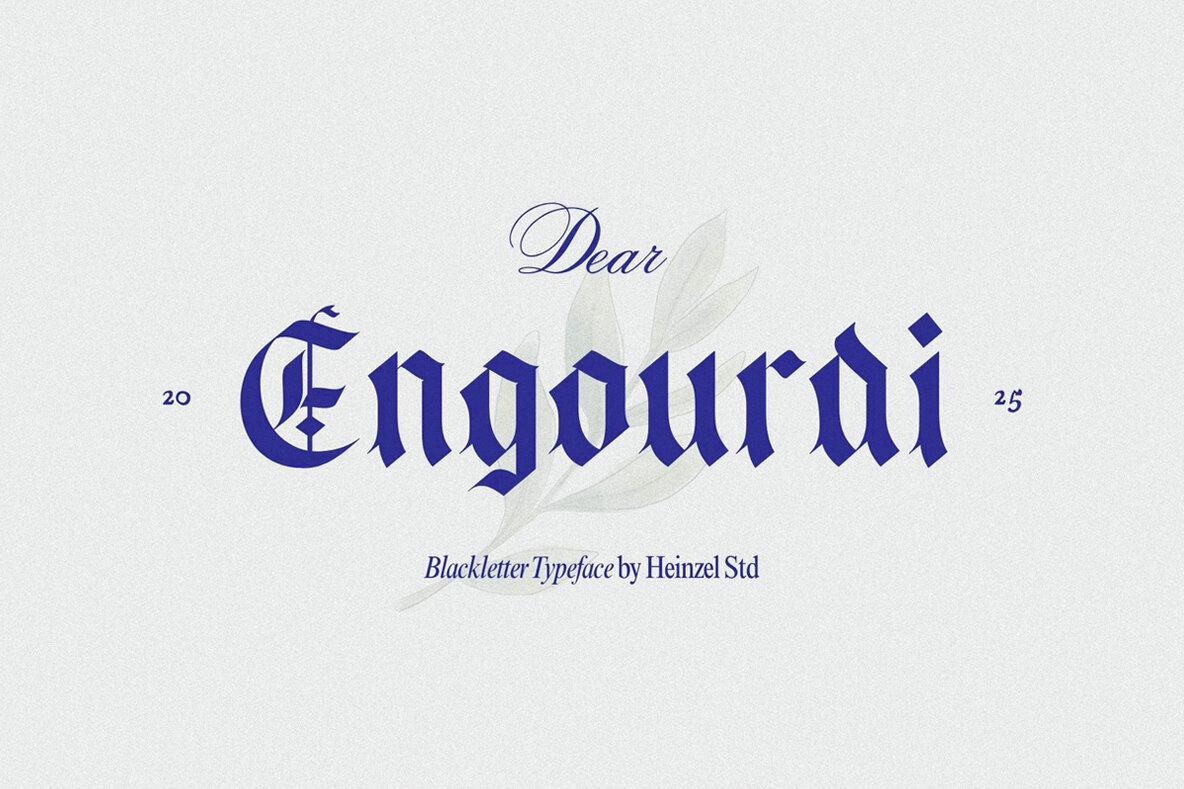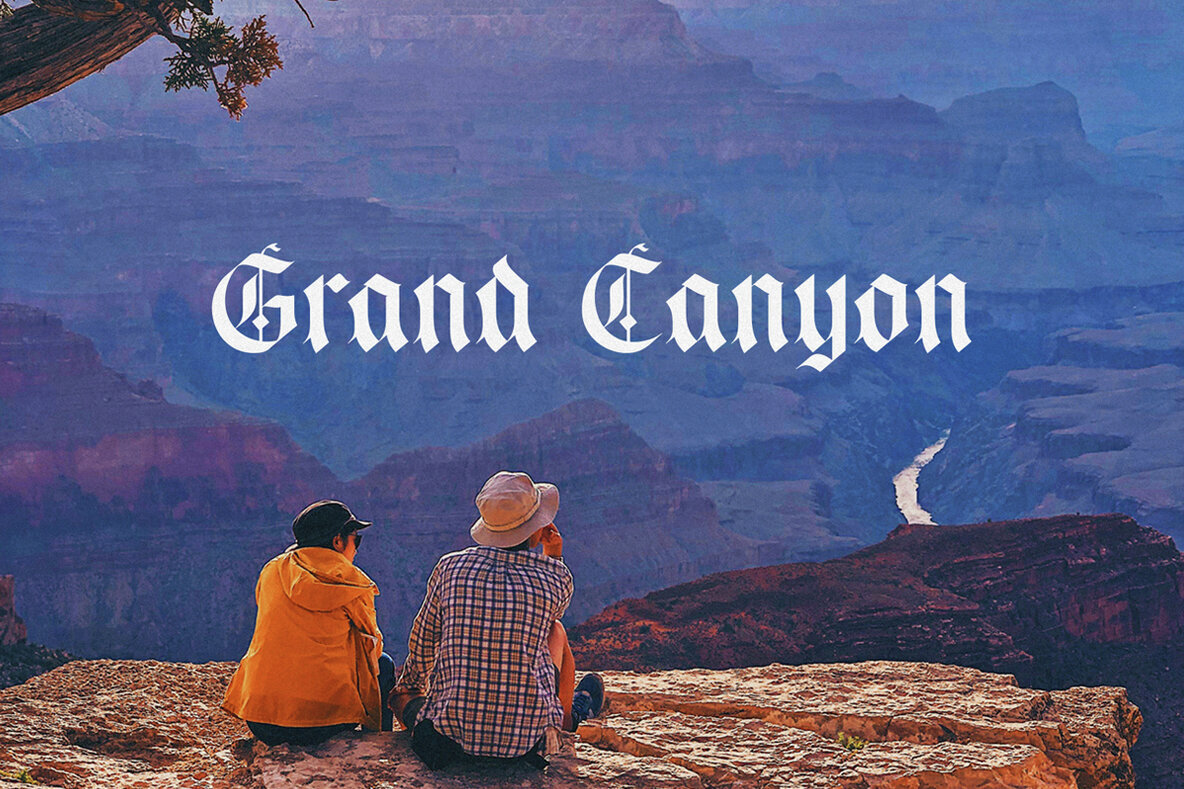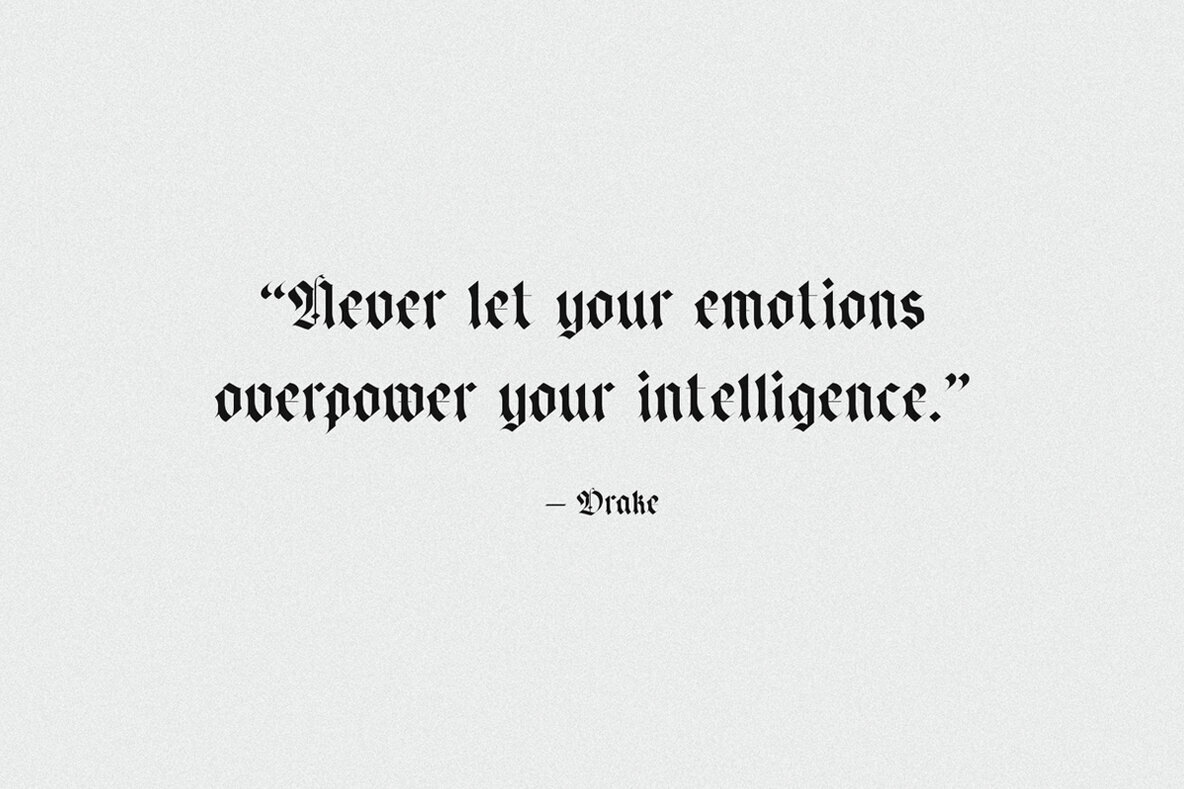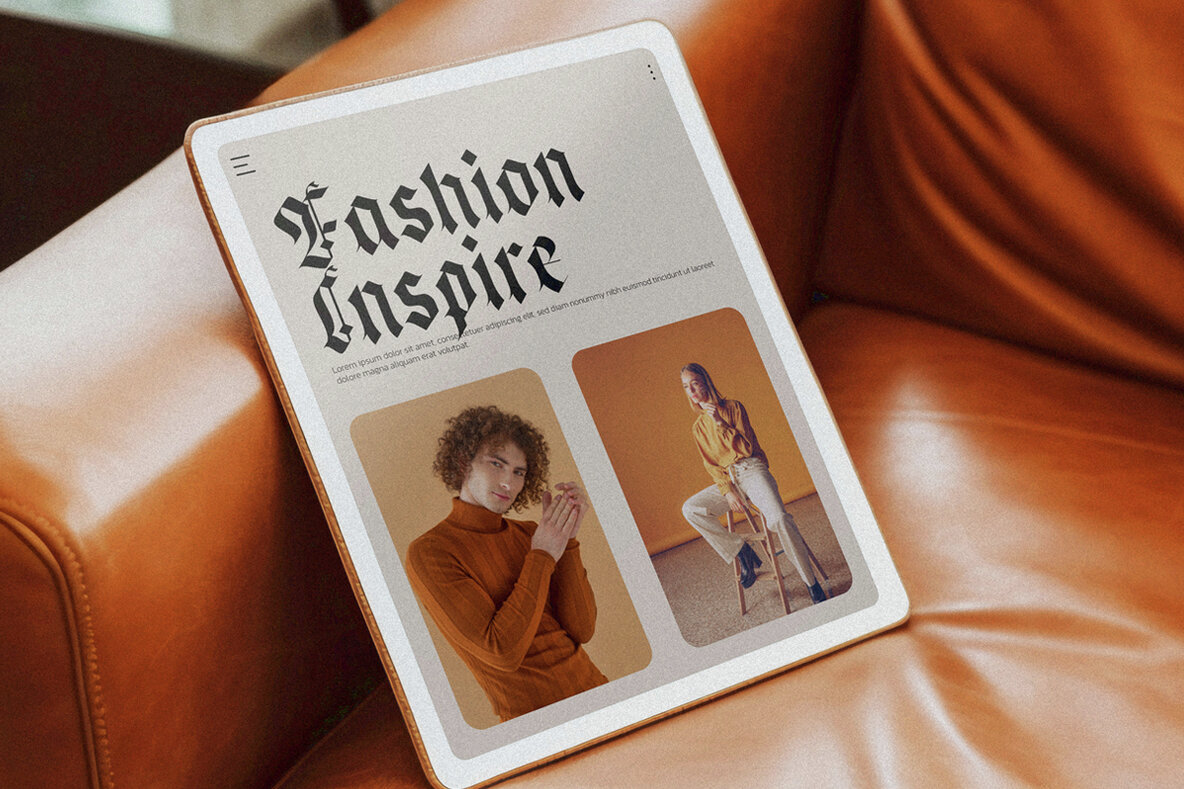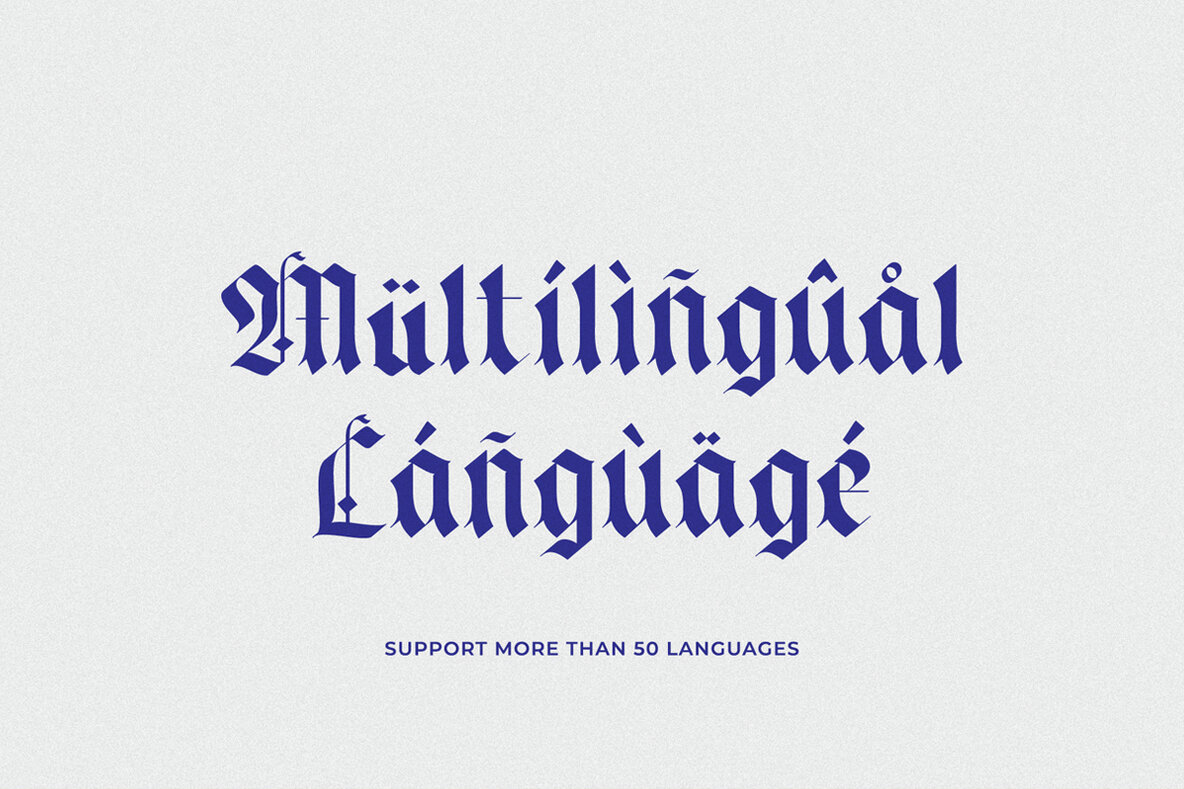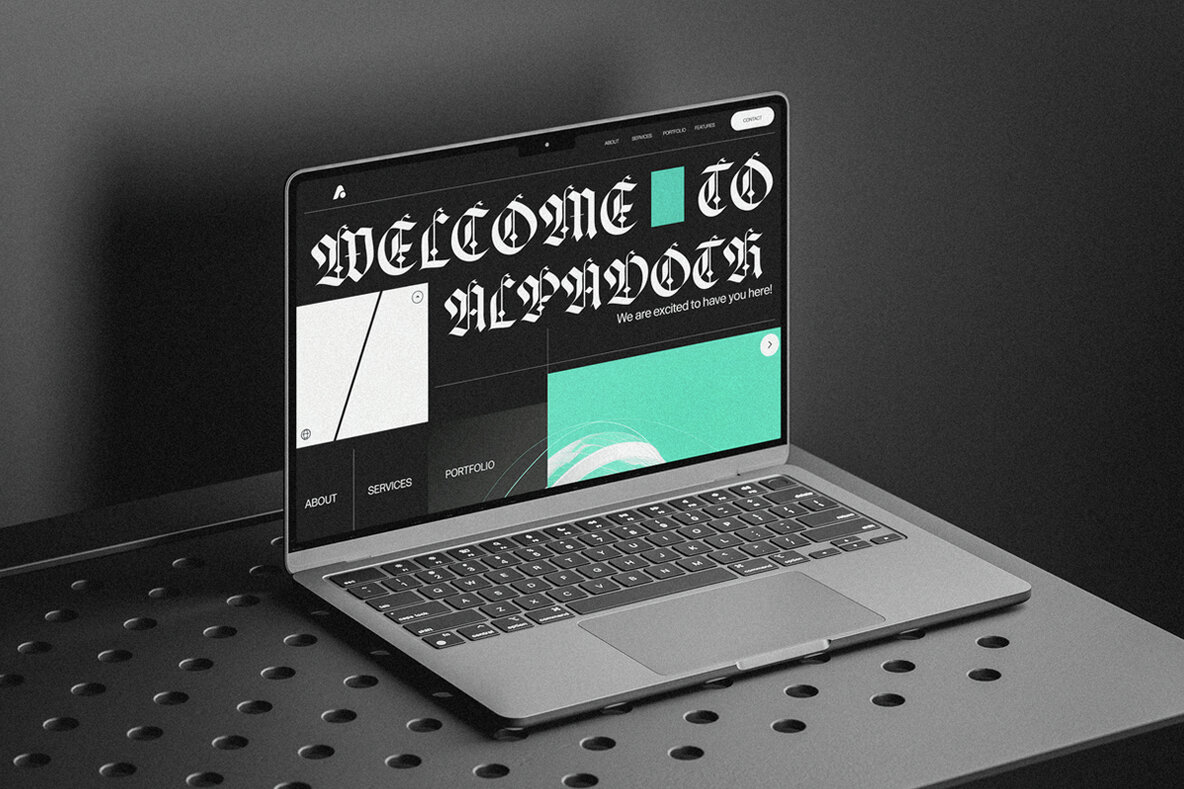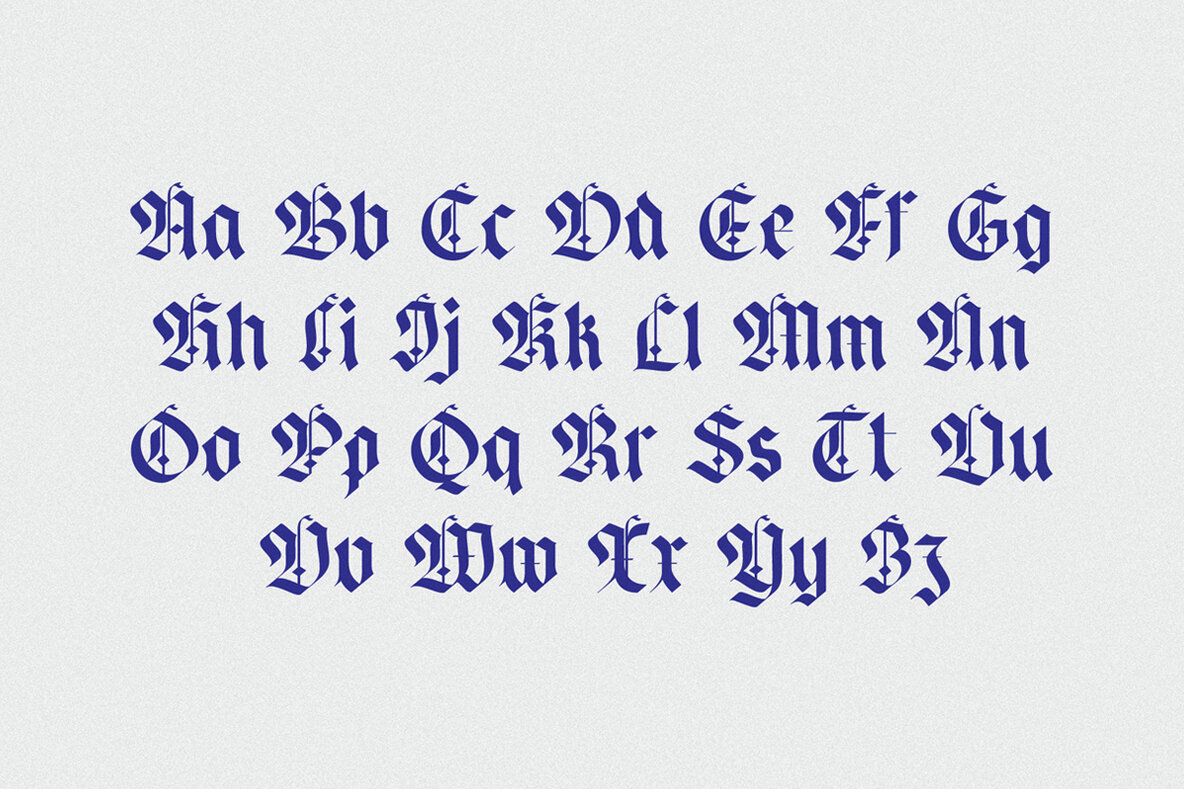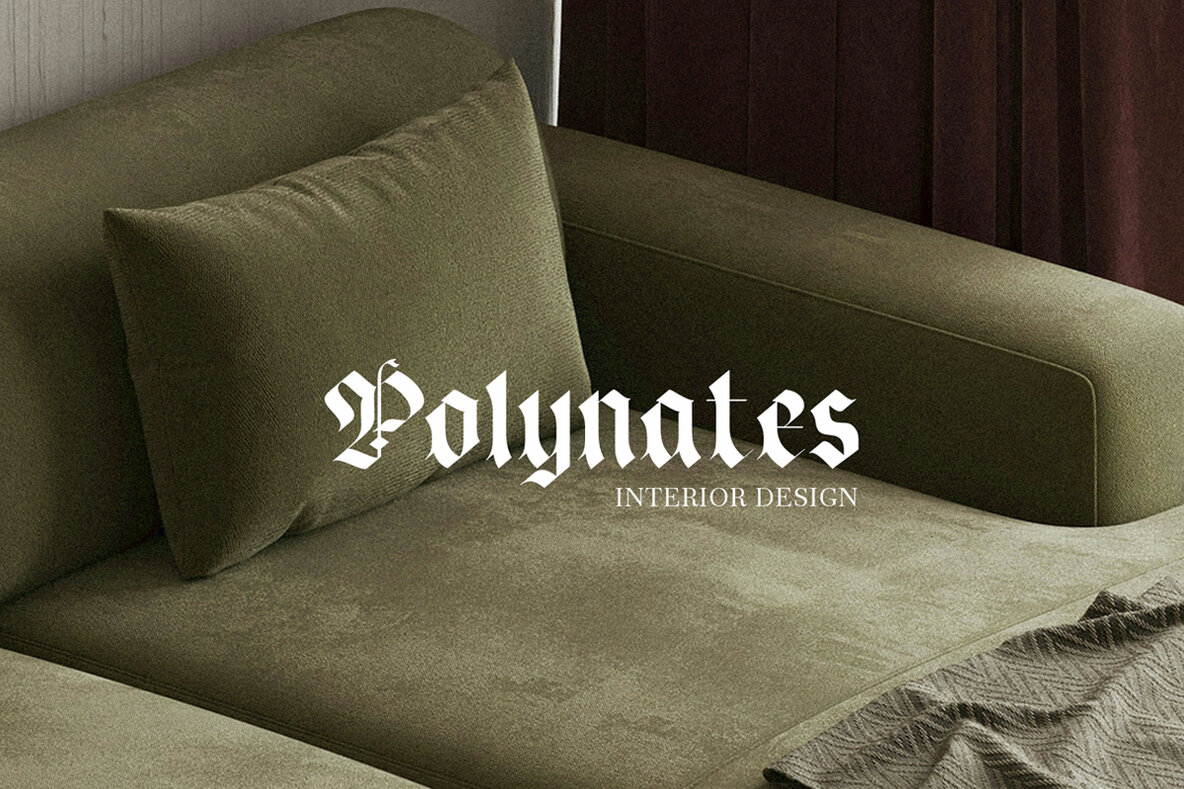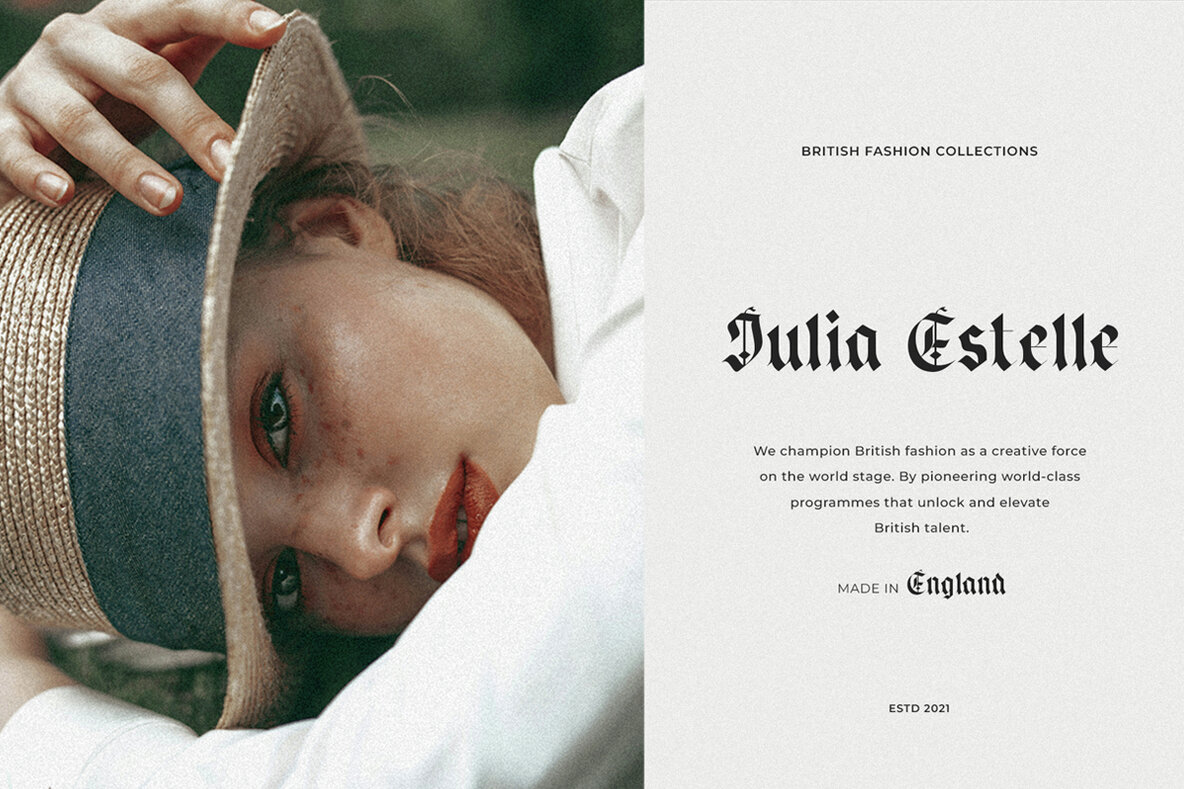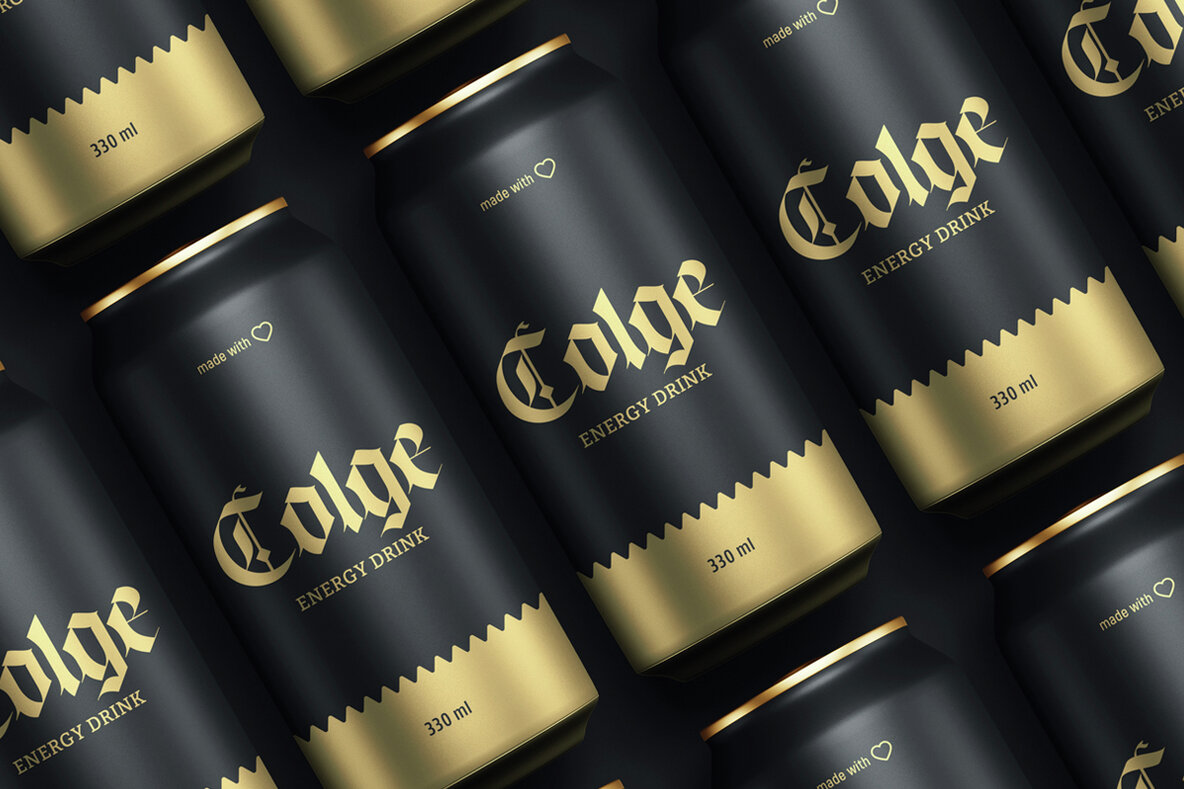
Engourdi Font
Engourdi Regular
Engourdi is a masterfully crafted blackletter font that beautifully blends medieval charm with modern flair. Its sharp strokes and intricate curves offer a balanced design, making it an excellent choice for branding, logos, packaging, and more. Whether you're working on posters, book covers, or editorial layouts, Engourdi provides an air of elegance and authority, perfect for luxury branding or vintage projects. Transform your designs with the timeless beauty and strong visual impact of Engourdi. Its versatility makes it an asset for any creative endeavor.Engourdi: A Modern Medieval Masterpiece